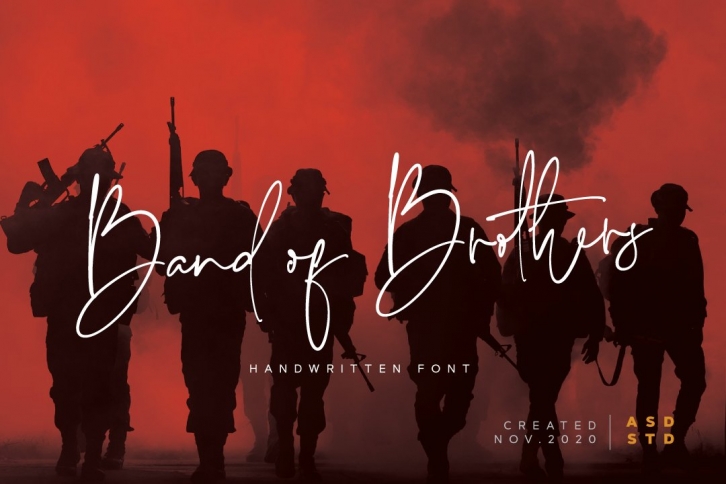
Band of Brother is a great font that was designed by Asd Studio. Imagine the amount of combinations you can create using this font! The archive is 4.42 MB and it was released on November 12, 2020. Band of Brother looks beautiful on wedding invitations, greeting cards, logos, posters, labels, t-shirt designs, logos, business cards and is perfect for use in ink or watercolor works, fashion, magazines, packaging and food menus, children's books and more!